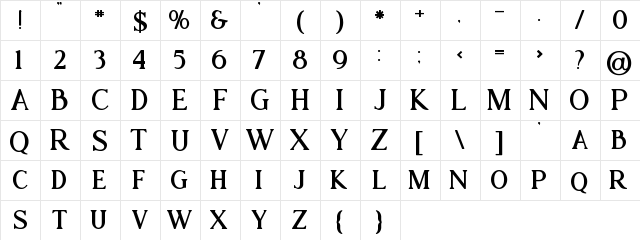
Atari bold Regular
Design Context for Atari bold Typeface
Atari bold is a composed and adaptable typeface that performs quietly and consistently across a wide range of design contexts. The heavy weight commands attention and anchors typographic hierarchies.
Pro Tip: Use Atari bold in both headline and body roles to test its range before committing to a single application.